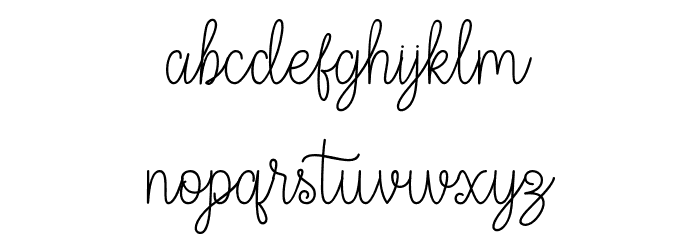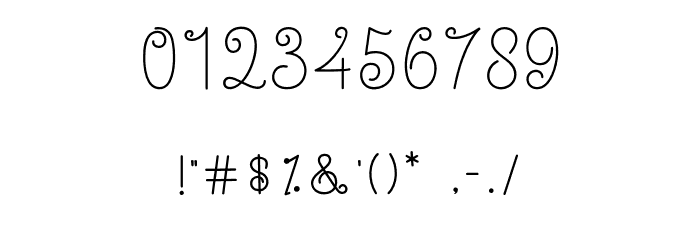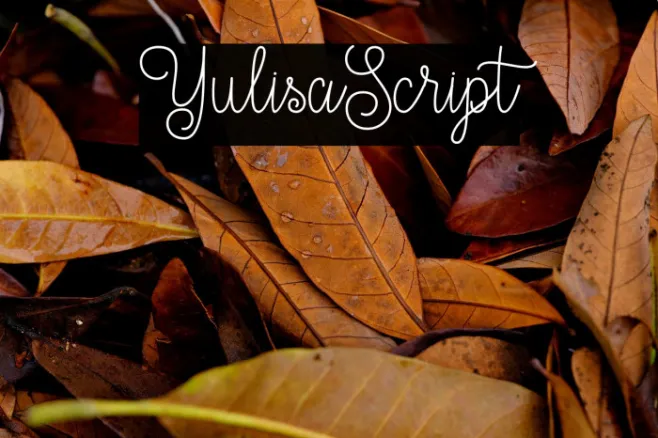
YulisaScript Font
This elegant script font features a flowing, cursive style with intricate loops and swirls, giving it a sophisticated and artistic appearance. The uppercase letters are particularly ornate, with elaborate flourishes that add a touch of elegance and charm. The lowercase letters maintain a consistent, smooth flow, making them easy to read while still retaining a decorative quality. The numerals and special characters are designed to complement the overall style, with a similar level of detail and refinement. This font is perfect for projects that require a touch of elegance and sophistication, such as wedding invitations, greeting cards, and branding materials.
An elegant script font with flowing, ornate characters and intricate loops.
- Proposed Projects: Ideal for wedding invitations, greeting cards, branding, and elegant design projects.
- Use Case: Logos, Invitations, Decorative text